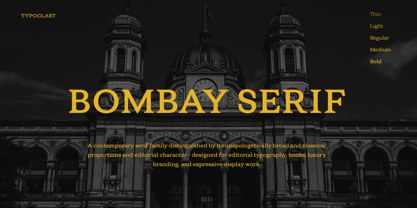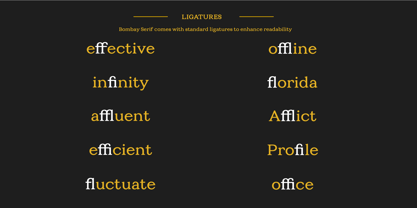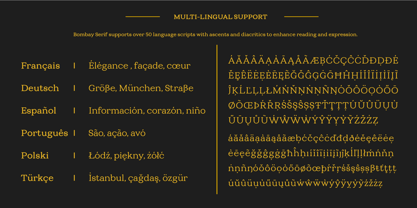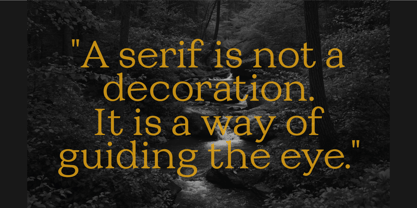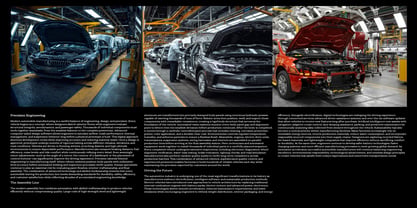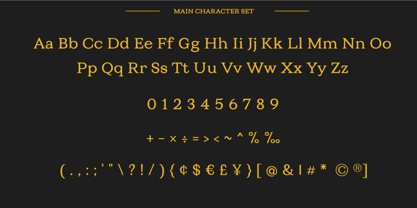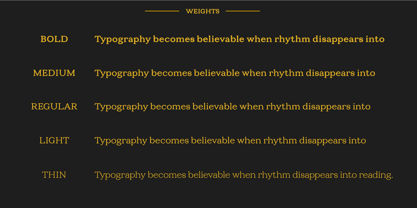
TC Bombay Serif
A família de fontes TC Bombay Serif foi desenhada por Milind Gawaskar e publicada pela Typoclast Studio. TC Bombay Serif contém 5 estilos e opções de pacote familiar. Saiba mais sobre esta família
TC Bombay Serif is a contemporary 5-weight serif family distinguished by its unapologetically broad and classical proportions and editorial character. It is designed for publishing, branding, modern literary layouts, refined corporate branding systems and cultural applications. Balancing classical proportions with a contemporary typographic rhythm, TC Bombay Serif delivers a commanding yet quiet editorial voice to your layouts. It brings an expressive personality to your communication with exceptional readability across a wide range of sizes. Open counters, carefully controlled contrast, and generous spacing create a texture that remains comfortable in extended reading while retaining a distinctive presence in display settings.
The complete family includes 5 foundational weights—Thin, Light, Regular, Medium, and Bold—offering an ideal typographic hierarchy for magazines, luxury journals, exhibition graphics, and sophisticated digital interfaces. With over 400 meticulously crafted glyphs,TC Bombay Serif includes fully manual kerning pairs, standard ligatures, mathematical symbols, and extended Latin diacritics supporting Western and South-Eastern European languages.
Designers: Milind Gawaskar